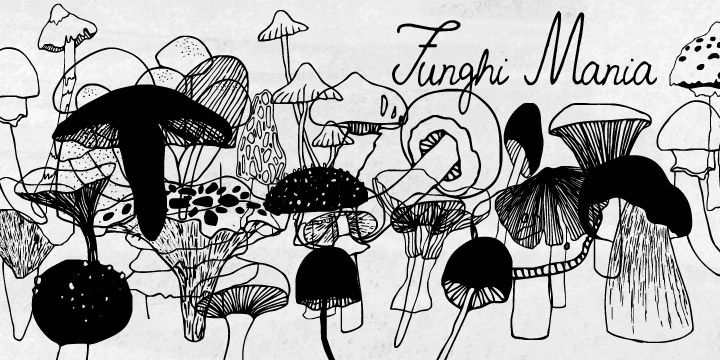
Funghi Mania Font excels in mushroom cultivation branding, organic fungi farm marketing, foraging guide publications, mycology education materials, forest-themed restaurant menus, natural food packaging, earthy product labeling, woodland adventure campaigns, botanical illustration projects, and nature conservation communications. Its organic character makes it perfect for projects requiring natural earthiness and mycological authenticity that celebrates fungal diversity and forest ecosystems.
What makes Funghi Mania Font exciting is its unique ability to capture the fascinating world of fungi through letterforms that embody the organic growth patterns and mysterious beauty of mushroom life cycles. The font features naturally irregular curves with spore-like textures that evoke the underground networks and surface manifestations of fungal organisms while maintaining excellent readability for educational communications. Its mycological character transforms ordinary text into expressions of natural wonder that celebrate the hidden kingdom of fungi.
The Funghi Mania Font family includes Regular, Bold, Light, Spore, Mycelium, Forest, and Organic variations. Each style preserves the font's fungal essence while offering different levels of natural complexity and mycological weight for creating authentic forest graphics. The comprehensive character set includes mushroom symbols, fungal ornaments, forest decorations, and botanical glyphs essential for genuine mycology and nature education typography projects.
Mycologists and nature-focused brands consistently choose Funghi Mania Font Free Download for projects demanding authentic fungal typography solutions. The font's organic character instantly establishes natural credibility while ensuring clear communication across environmental education channels. Its versatility spans from subtle mycological touches to bold statements that celebrate the essential ecological role of fungi and the fascinating complexity of fungal networks in forest ecosystems.
Whether you're developing nature brand identities, creating mycology educational materials, or designing forest communications, Funghi Mania Font provides the perfect combination of organic authenticity and contemporary functionality. The font's naturally crafted letterforms ensure genuine fungal character while maintaining excellent performance across various environmental applications and nature-focused business communications.
The ecological heritage of Funghi Mania Font makes it exceptional for creating educational connections with audiences fascinated by mycology and forest ecosystems. Its fungal precision and organic appeal work seamlessly across traditional nature materials and modern digital environmental platforms. The font performs naturally in both large-scale educational displays and intimate mycological communications.
Explore the fungal kingdom with Funghi Mania Font and discover how authentic mycological typography can enhance your nature projects with genuine organic appeal and ecological sophistication. This remarkable typeface combines fungal biology with contemporary functionality, making it indispensable for educators and nature brands celebrating the mysterious beauty and essential ecological importance of fungi in forest ecosystems.